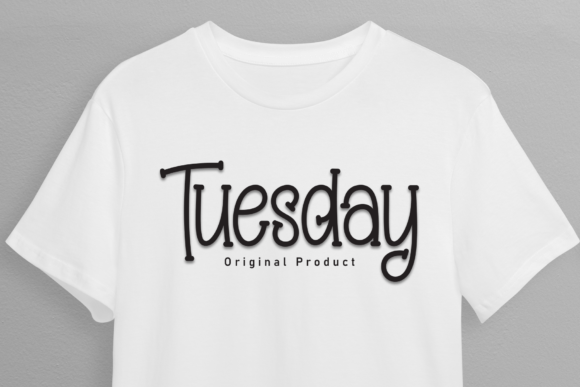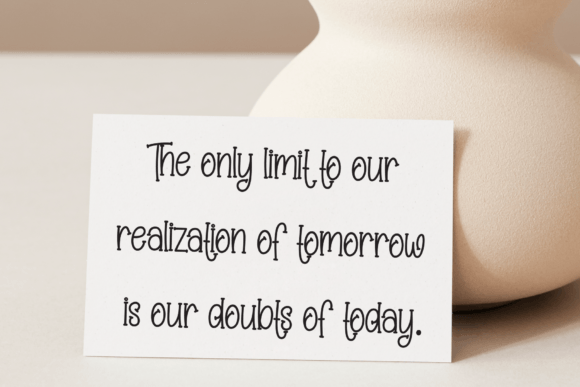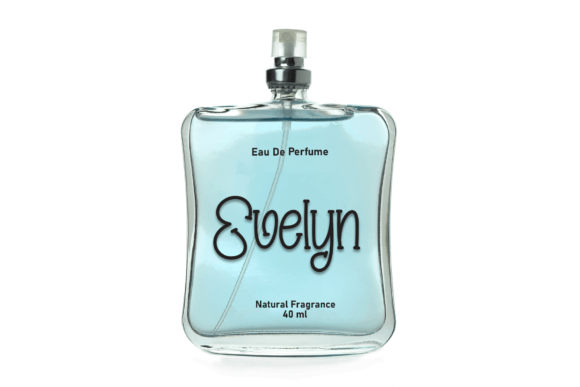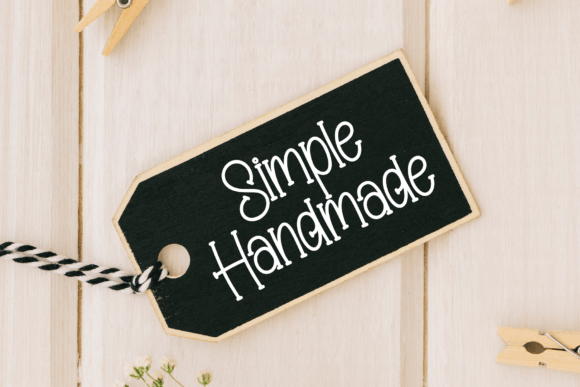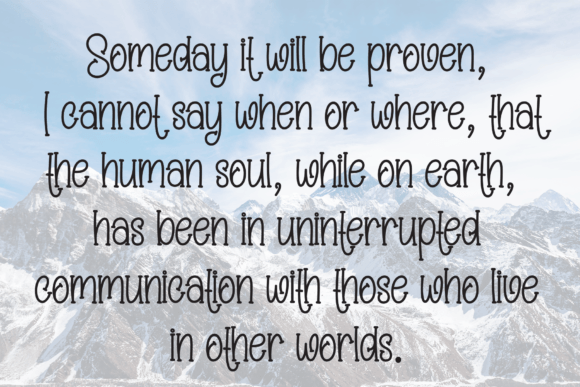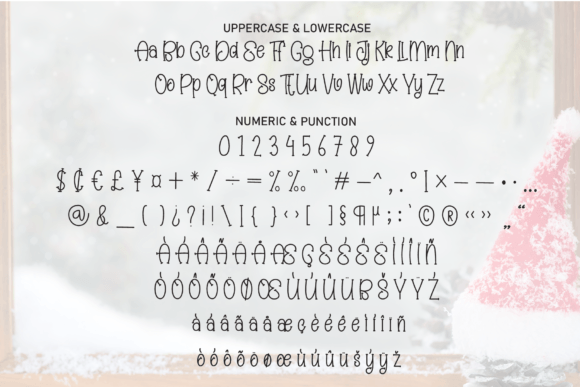
Introducing Chilliy Christmas Font: The Perfect Addition to Your Design Projects
Are you looking for a font that can add a touch of warmth and authenticity to your designs? Look no further than Chilliy Christmas Font, a casual handwritten font that captures a relaxed and friendly vibe with its natural, flowing strokes. In this article, we’ll take a closer look at the features and benefits of Chilliy Christmas Font, and explore how it can be used to elevate your personal projects, social media, and invitations.
The Charm of Chilliy Christmas Font
Chilliy Christmas Font is a unique and charming font that is perfect for designers and crafters who want to add a personal touch to their work. The font’s easygoing style adds warmth and authenticity to any design, making it ideal for projects that require a friendly and approachable tone. Whether you’re creating invitations, social media graphics, or personal projects, Chilliy Christmas Font is sure to bring a smile to your audience’s faces.
Key Features of Chilliy Christmas Font
- Casual Handwritten Style: Chilliy Christmas Font features a casual handwritten style that is perfect for creating a relaxed and friendly vibe.
- Natural Flowing Strokes: The font’s natural flowing strokes give it a organic and authentic feel that is perfect for a variety of design projects.
- Easygoing Style: The font’s easygoing style adds warmth and authenticity to any design, making it perfect for personal projects and social media graphics.
- Versatile: Chilliy Christmas Font is versatile and can be used for a variety of design projects, including invitations, social media graphics, and personal projects.
Uses for Chilliy Christmas Font
Chilliy Christmas Font is perfect for a variety of design projects, including:
- Personal Projects: Use Chilliy Christmas Font to add a personal touch to your personal projects, such as photo albums, scrapbooking, and craft projects.
- Social Media Graphics: Use Chilliy Christmas Font to create social media graphics that are friendly, approachable, and engaging.
- Invitations: Use Chilliy Christmas Font to create invitations that are warm, authentic, and inviting.
- Holiday Projects: Use Chilliy Christmas Font to create holiday projects, such as Christmas cards, holiday gift tags, and festive decorations.
Tips for Using Chilliy Christmas Font
Here are a few tips for using Chilliy Christmas Font in your design projects:
- Pair with Other Fonts: Pair Chilliy Christmas Font with other fonts to create a unique and interesting contrast.
- Use for Headings and Body Text: Use Chilliy Christmas Font for both headings and body text to create a cohesive and friendly look.
- Keep it Simple: Keep your design simple and clean to let the font shine.
Chilliy Christmas Font is a unique and charming font that is perfect for designers and crafters who want to add a personal touch to their work. With its casual handwritten style, natural flowing strokes, and easygoing style, it’s ideal for personal projects, social media graphics, and invitations. Whether you’re creating holiday projects or just want to add a touch of warmth and authenticity to your designs, Chilliy Christmas Font is a great choice.